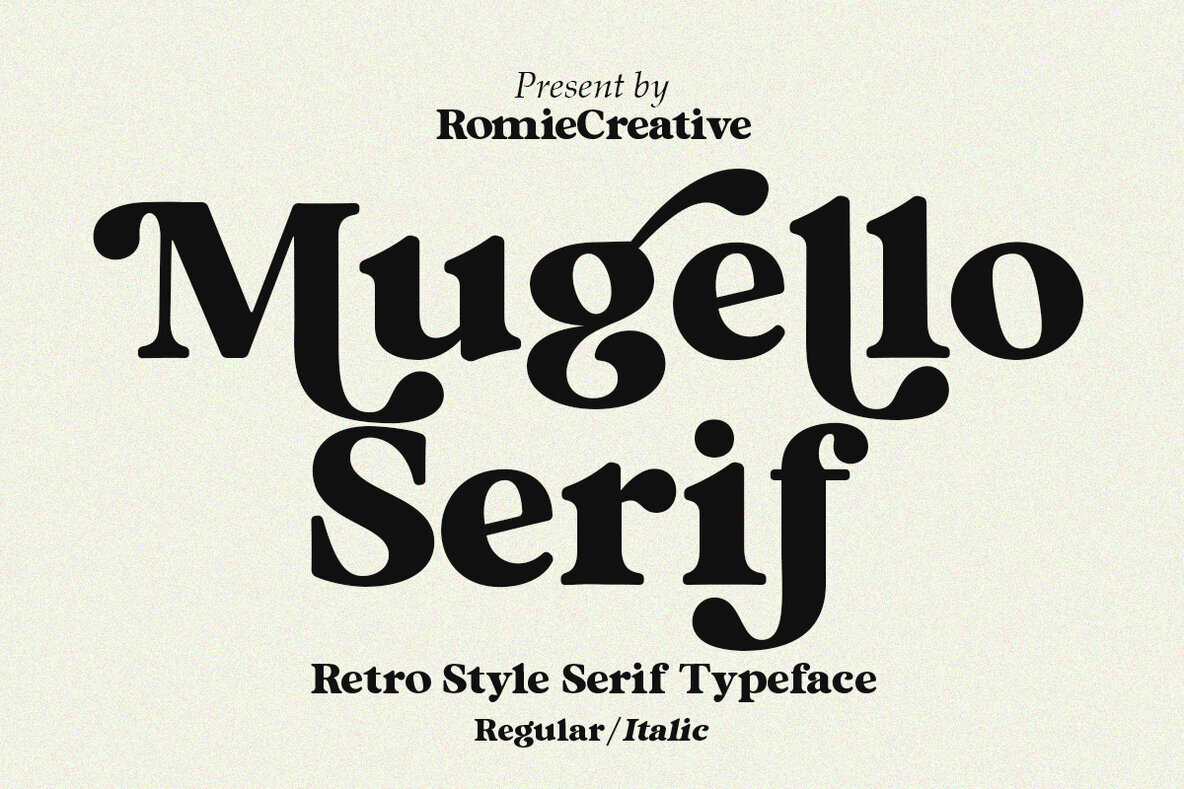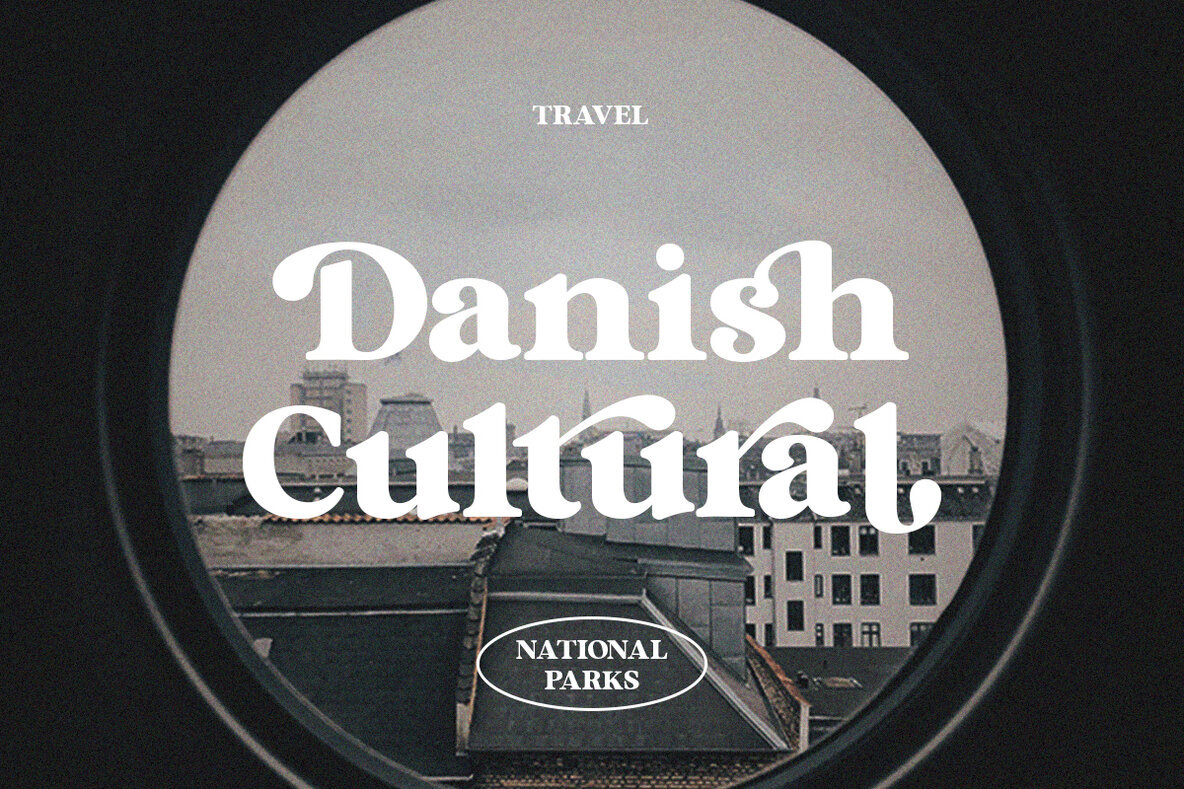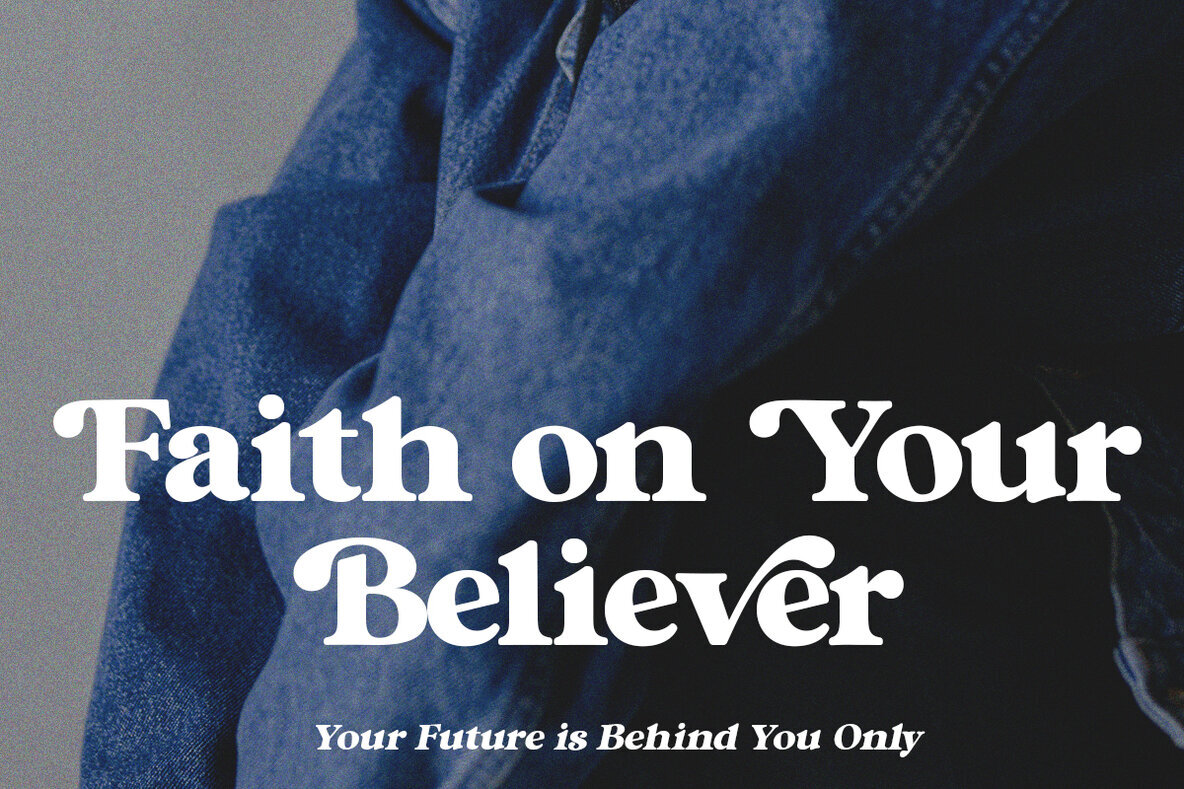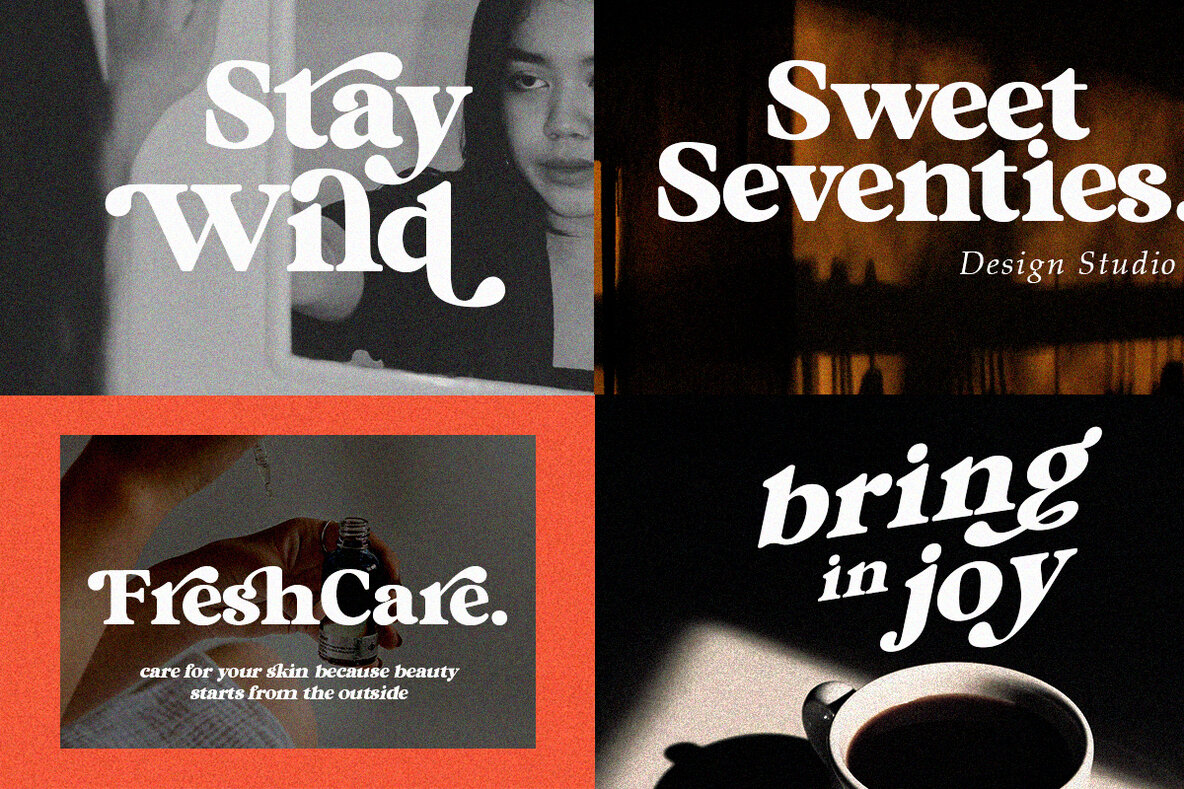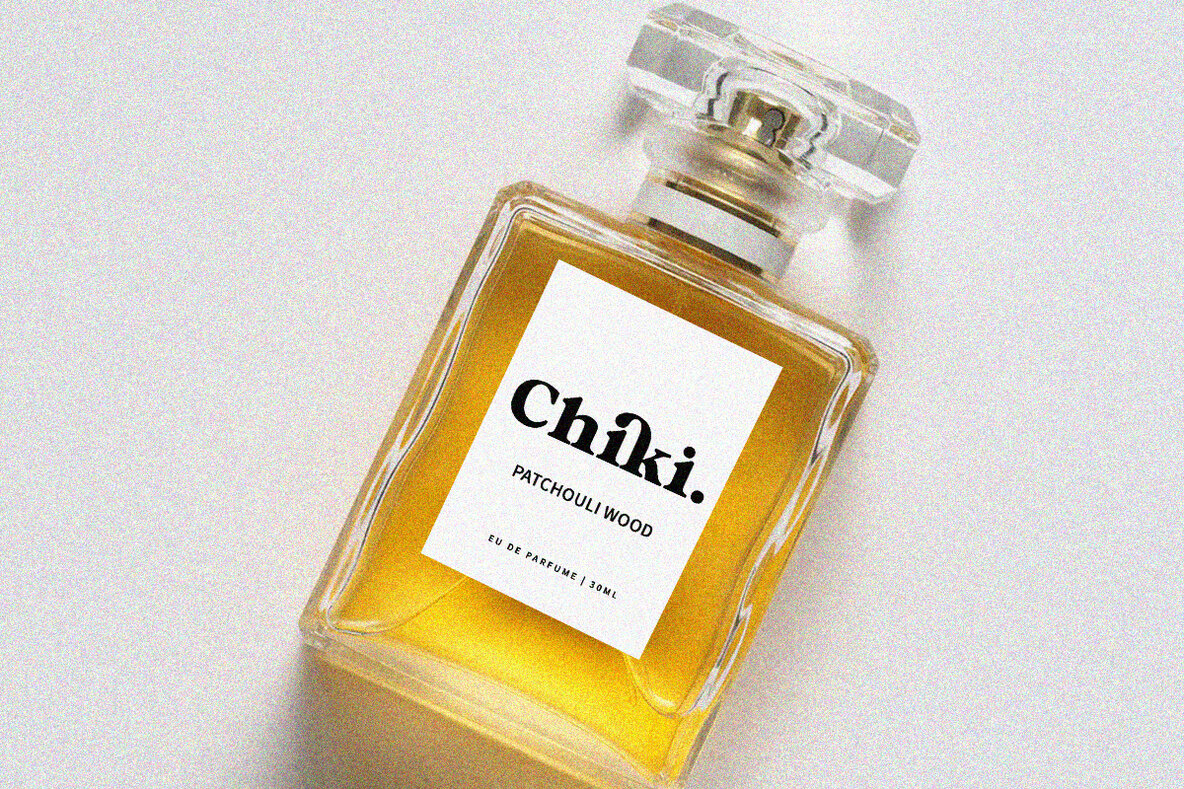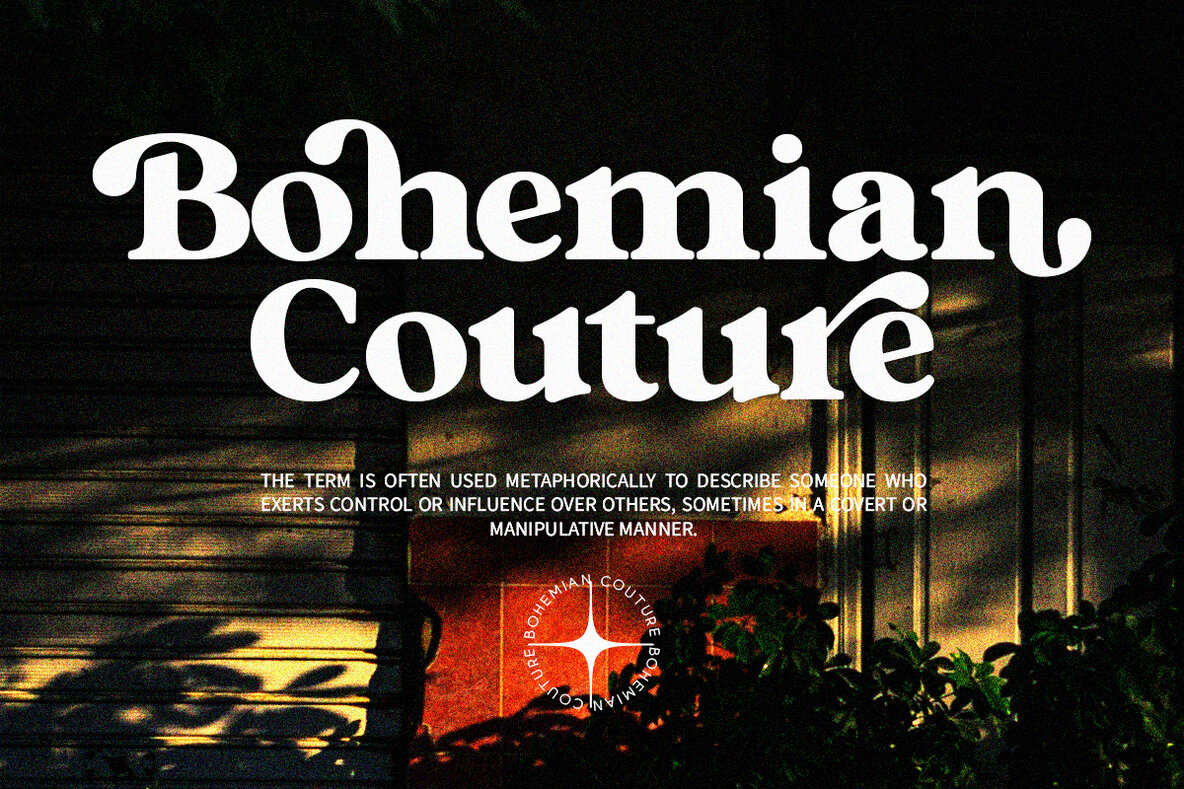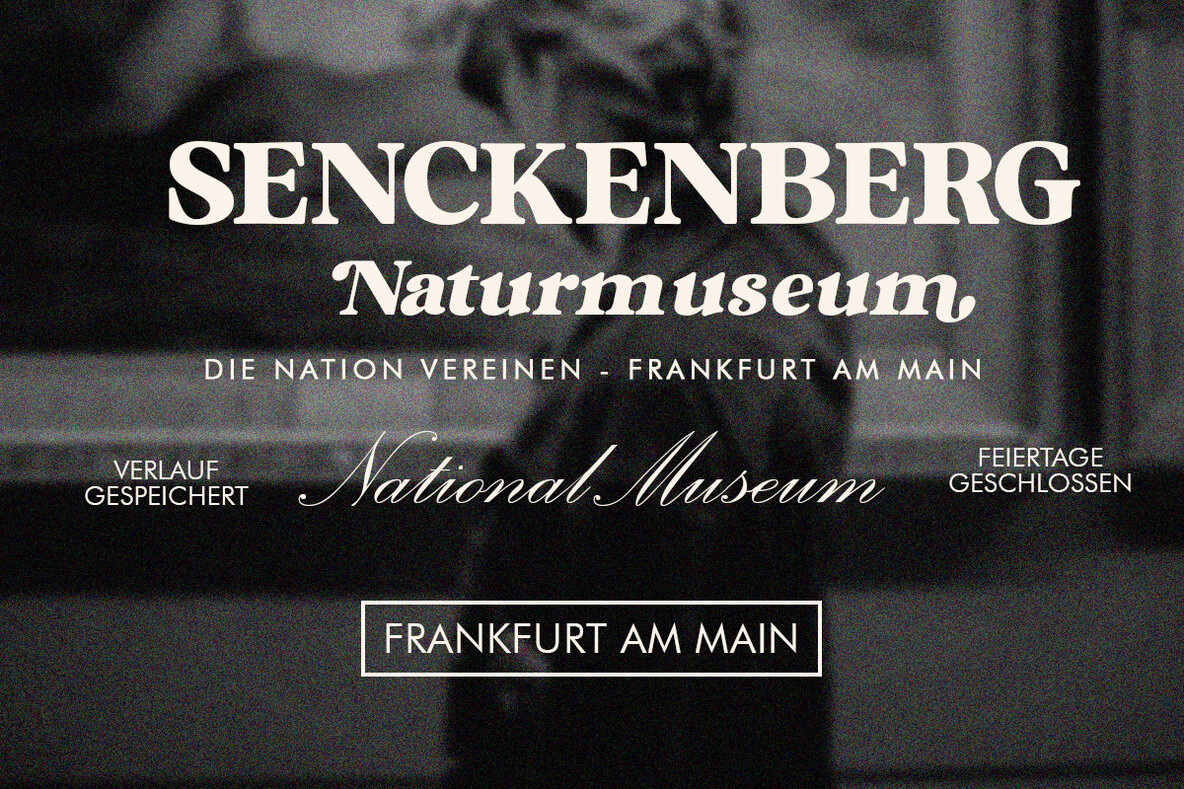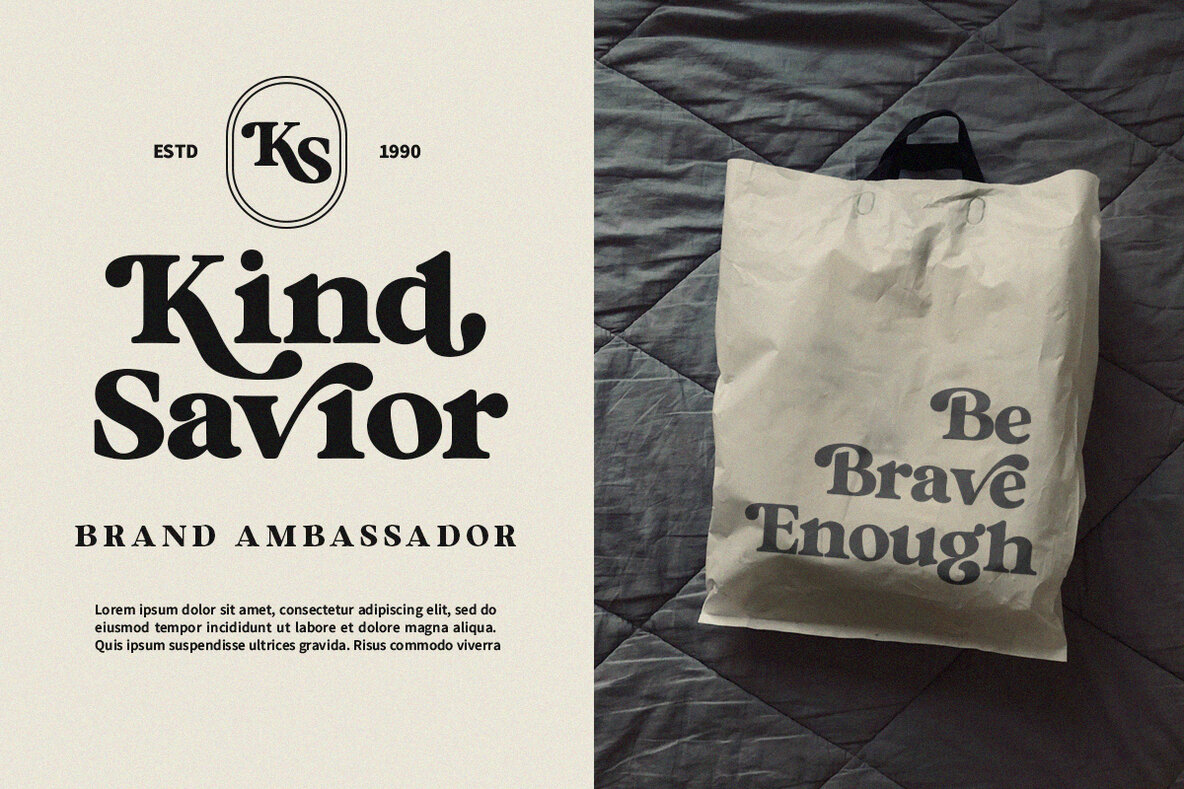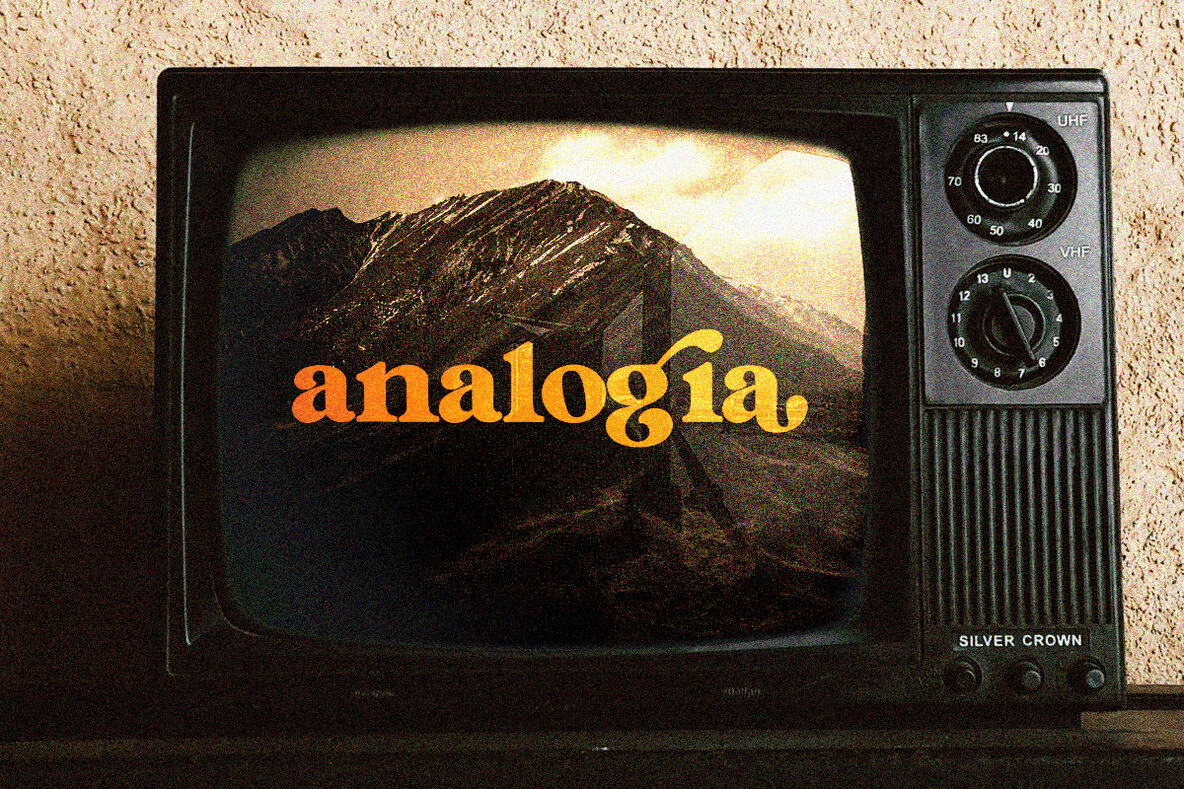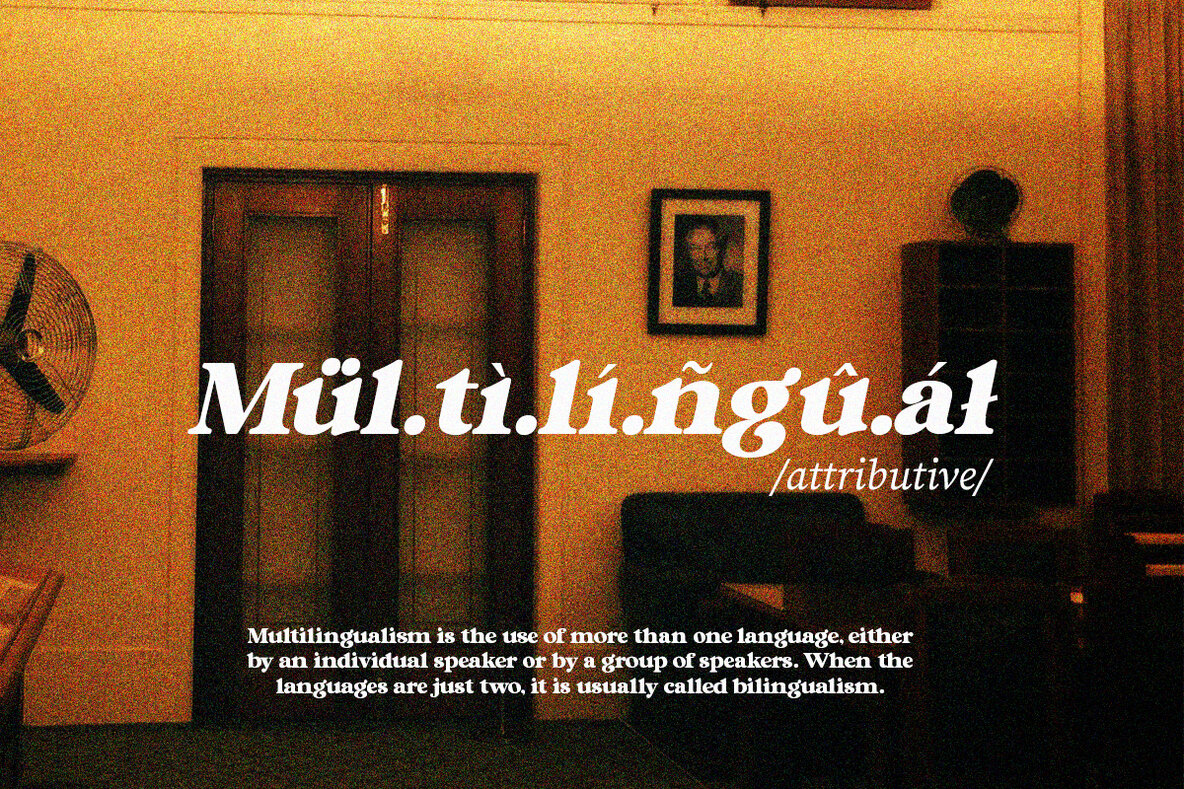
Mugello Font
Introducing Mugello Serif by Romie Creative, a font that seamlessly marries modern aesthetics with a retro flair. Perfect for those looking to make a statement, Mugello Serif is your go-to choice for crafting stunning logos, engaging quotes, captivating blog posts, or sophisticated branding projects. Its versatile design makes it ideal for magazine imagery and elegant wedding invitations, ensuring your work stands out with style.Mugello Serif: A Timeless Blend of Modern and Retro